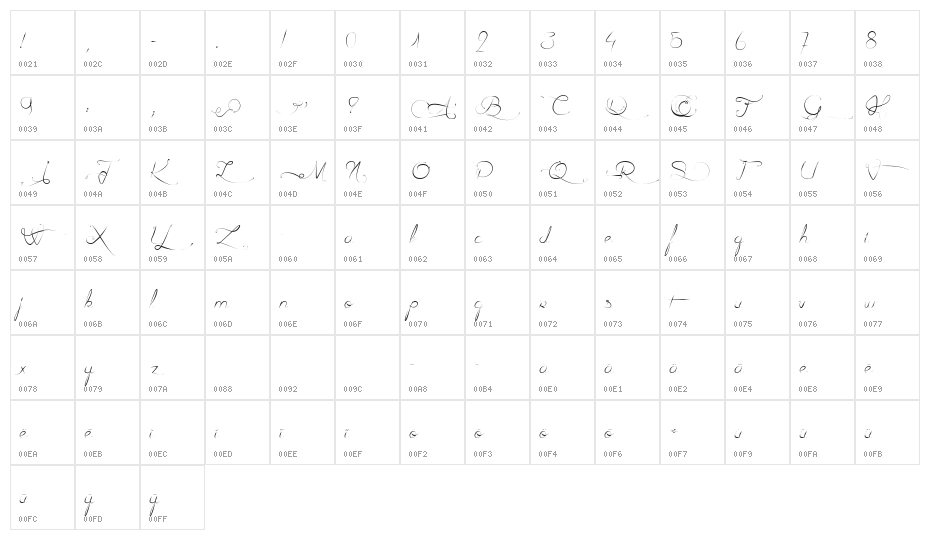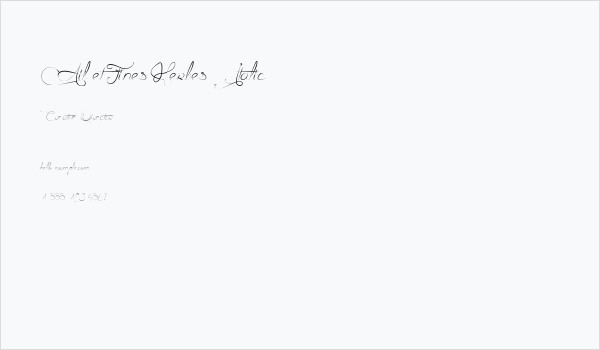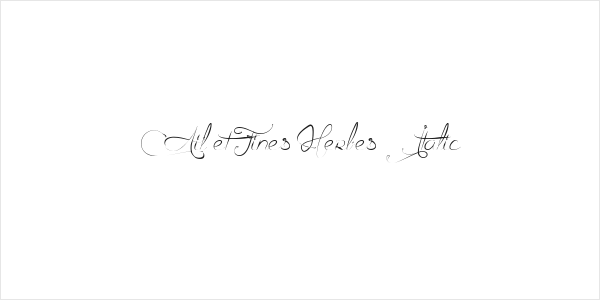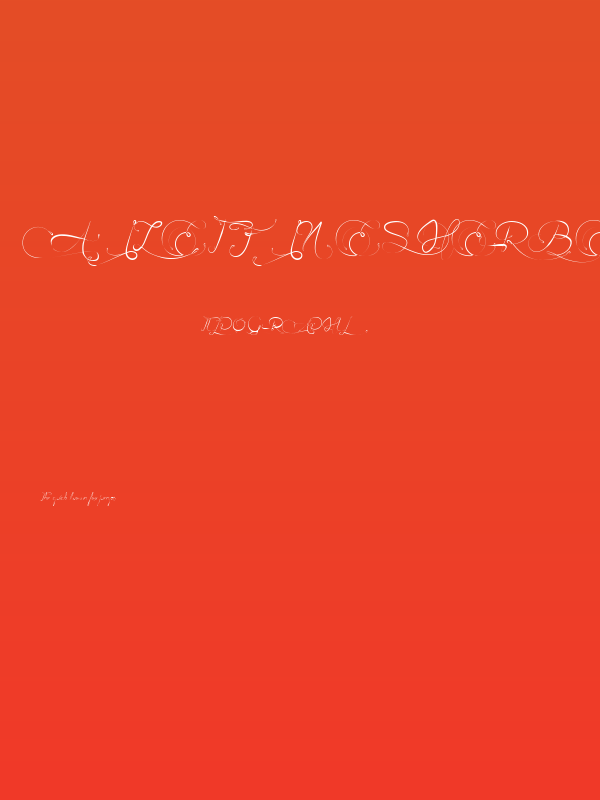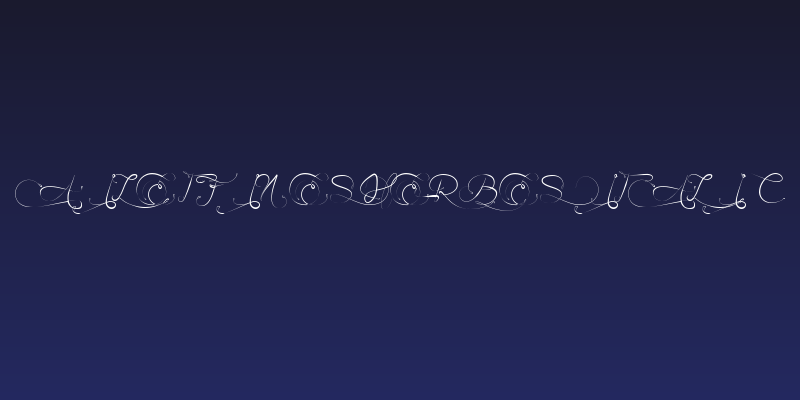
Ail et Fines Herbes Italic Font
Ail et Fines Herbes Italic Description
This font features an elegant and flowing script style, characterized by its intricate and decorative swashes. The letters are connected in a fluid manner, giving it a sophisticated and artistic appearance. The uppercase letters are particularly ornate, with elaborate loops and flourishes that extend beyond the baseline and cap height. The lowercase letters maintain a consistent slant, contributing to the italicized effect. The numerals are styled to match the cursive nature of the alphabet, with a graceful and cohesive look. Special characters are designed with similar embellishments, enhancing the overall aesthetic. This font is ideal for projects that require a touch of elegance and creativity.
| Proposed Projects | Ideal for wedding invitations, elegant branding, artistic posters, and decorative headings. |